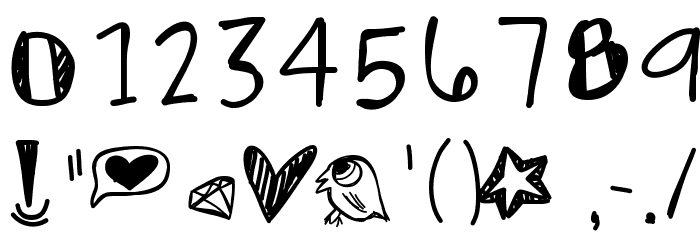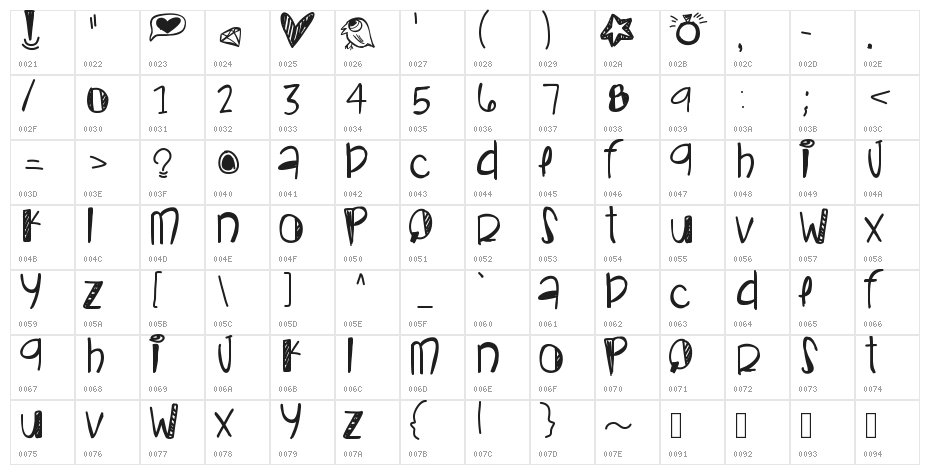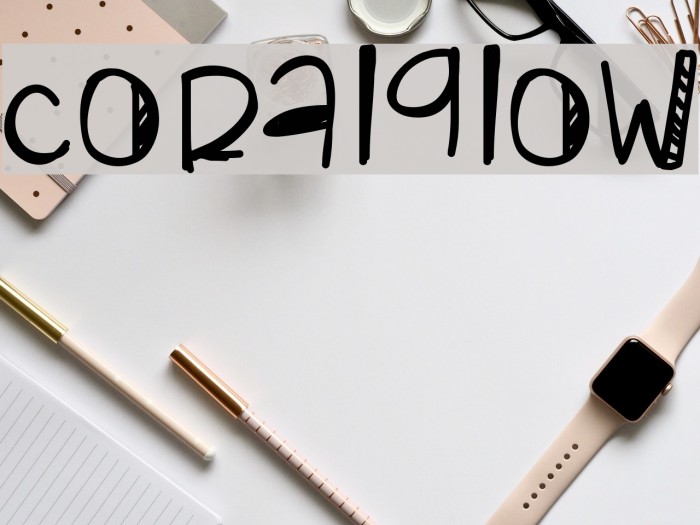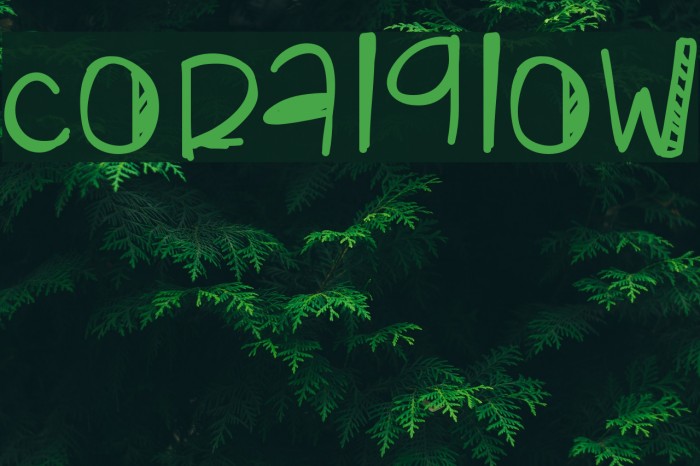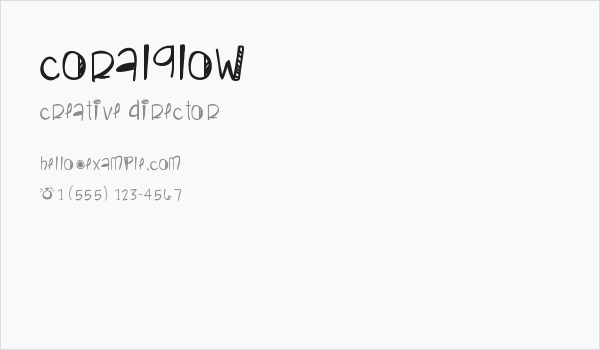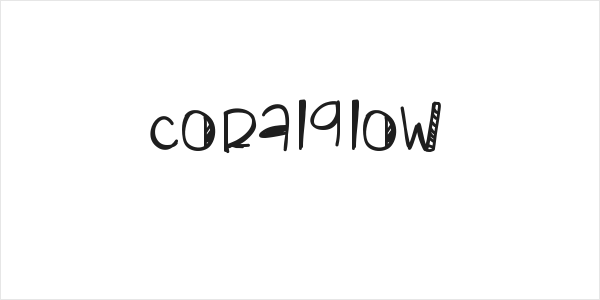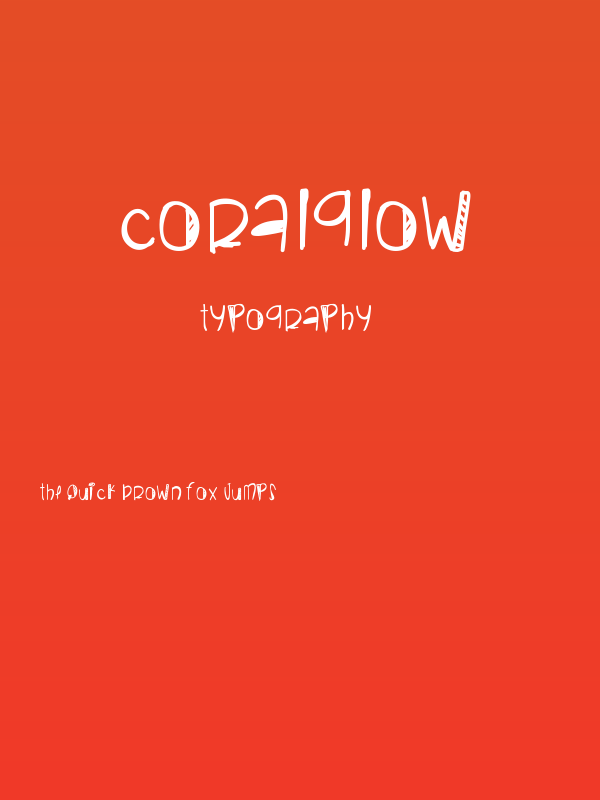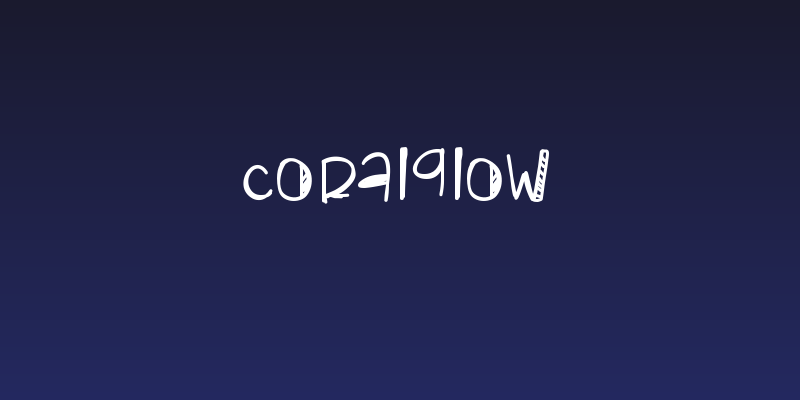
CoralGlow Font
CoralGlow Description
This playful and whimsical font features a handwritten style with a casual and friendly appearance. The letters are characterized by their uneven strokes and quirky shapes, giving them a unique and artistic flair. The uppercase and lowercase letters maintain a consistent style, with some letters having distinctive loops and curves. Numbers and special characters follow the same playful design, adding to the font's overall charm. The font's informal and lively nature makes it suitable for creative and fun projects.
| Proposed Projects | Ideal for children's books, greeting cards, playful branding, and creative social media graphics. |